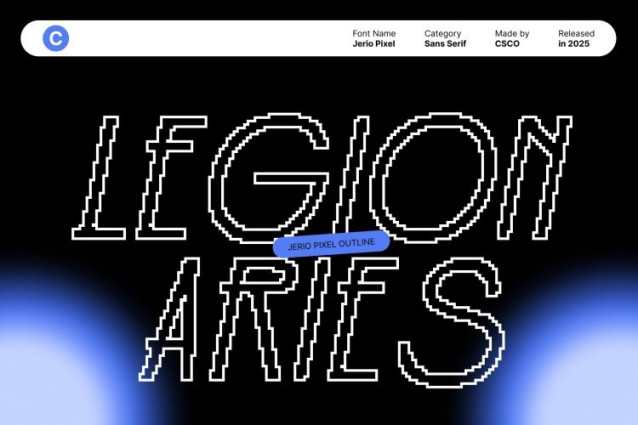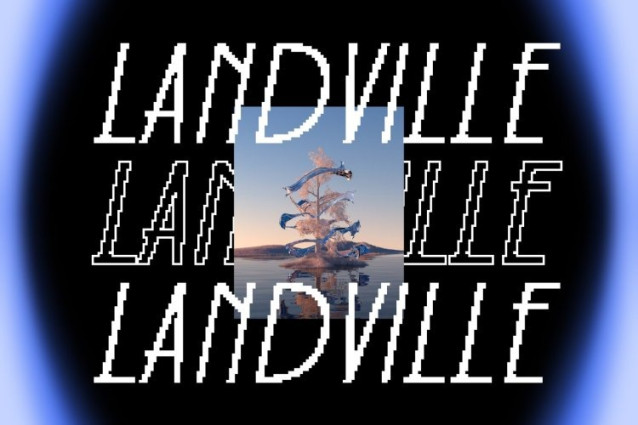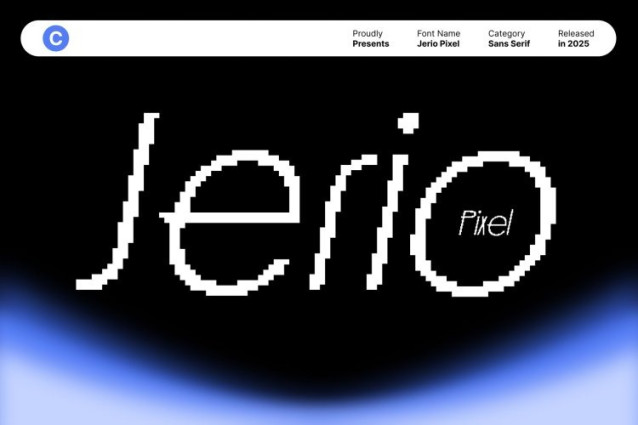
Jerio Pixel Font
Jerio Pixel Font – This is a sophisticated Art Deco inspired typeface that embodies timeless elegance through slim proportions and refined geometric forms. Its condensed structure and clean lines reflect the classic Art Deco aesthetic, delivering a sense of luxury, balance, and visual confidence that feels both iconic and enduring.
Striking Geometry and Condensed Form
With precise construction and strong vertical emphasis, features striking characters that stand out while remaining clean and orderly. The geometric accuracy and narrow proportions make it highly effective for layouts that demand clarity, rhythm, and a polished decorative presence.
Pixel Style with Modern Digital Flair
The pixel treatment introduces a modern, digital character that transforms the classic Art Deco foundation into a bold retro-futuristic statement. This pixel detail adds texture and personality, blending nostalgic charm with contemporary digital aesthetics and making the font feel fresh, innovative, and screen-ready.
Perfect for Luxury and Retro Branding
This font is ideal for decoration-themed designs, luxury branding, editorial layouts, high-end packaging, and modern digital branding. Its fusion of elegant Art Deco structure and pixel styling makes it especially suitable for retro design concepts, premium visuals, and creative projects that seek a distinctive balance of classic sophistication and modern technology.